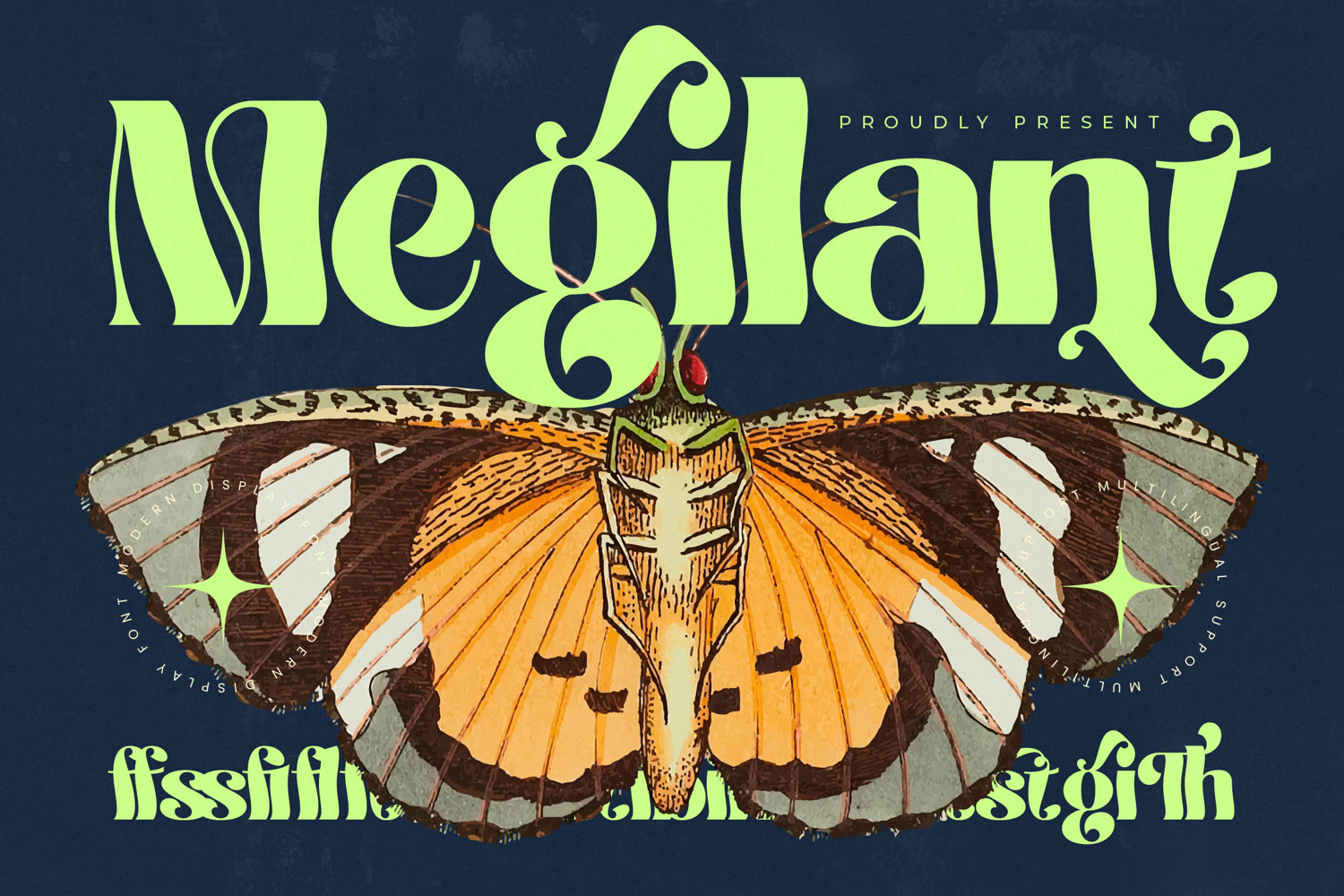
Megilant - Modern Display Font
Discover vibrant and unique design with Font Megilant - Modern Display Font Groovy. This exceptional typeface seamlessly fuses a retro-inspired Groovy aesthetic with modern flair, creating a visual language of playful elegance. Its distinctive letterforms command attention, ensuring your projects radiate unparalleled style and originality, always eye-catching.
Embrace the perfect blend of nostalgia and contemporary design found in Font Megilant - Modern Display Font Groovy. Characterized by its bold curves and dynamic forms, this font exudes confidence. The intentional use of high-contrast elements enhances its powerful presence, offering designers versatility that guarantees impact and professionalism across all creative endeavors.
With its extensive multilingual support, Font Megilant - Modern Display Font Groovy adapts seamlessly across global markets, making it incredibly versatile for international projects. This crucial feature ensures global adaptability and broad appeal for diverse audiences, reinforcing its professional utility for worldwide branding and communication needs.
Elevate your visual communication; Font Megilant - Modern Display Font Groovy is ideally suited for luxury branding, packaging, editorial design, and the fashion or music industry. It is an essential asset for event promotion, eye-catching headlines, and contemporary advertising. Choose this font to craft memorable, impactful, and distinctive statements, leaving a truly bold impression.